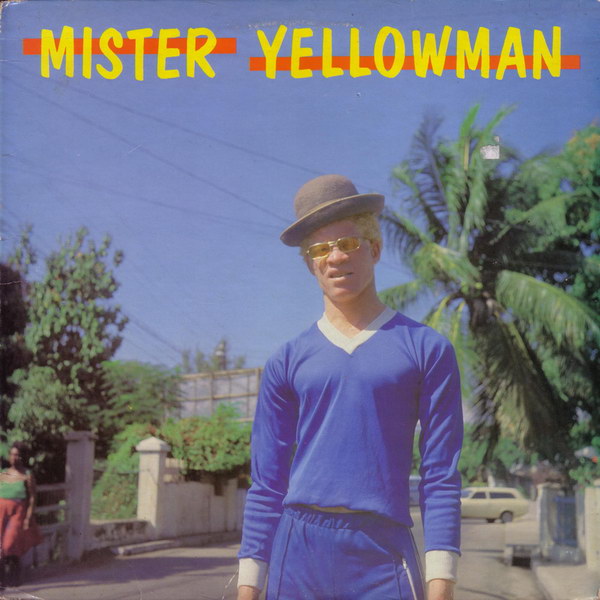
Mister Yellowman Font
Fonts in UseMister Yellowman is a studio album released in 1982 by the Jamaican dancehall artist Yellowman. It features his signature style of toasting over classic reggae rhythms and includes popular tracks like "Zungguzungguzeng."
Dom Casual an unjoined script typeface designed by Peter Dombrezian for ATF in 1951, was likely used for the album title on the cover. More information about the typeface is available here.